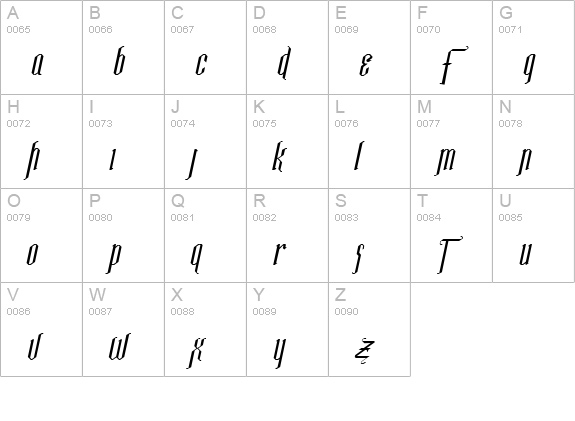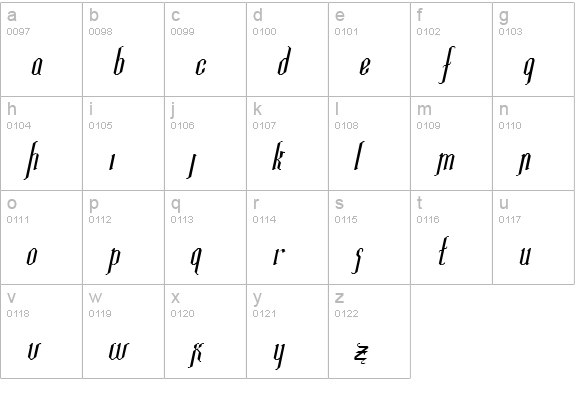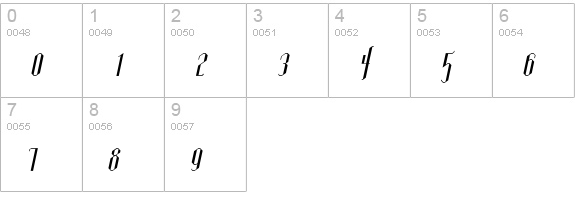
IpswichExtended Italic Font Details
IpswichExtended Italic is a distinctive, italic variant in the IpswichExtended typeface family \xE2\x80\x94 well suited to design and typography projects.
IpswichExtended Italic font is a stunning addition to any design project, offering a captivating blend of elegance and modernity. With its sleek and graceful curves, this font exudes a sense of sophistication that is sure to capture attention. Designed with creativity in mind, IpswichExtended Italic font is perfect for various purposes, from branding and logo design to headlines and editorial work. Its italicized style adds a touch of drama and flair, making it ideal for projects that require a touch of uniqueness and personality. One of the best features of IpswichExtended Italic font is that it is freely available to download at FontsMarket.com. This means that designers and enthusiasts alike can access this extraordinary font without any cost. Whether you are a professional designer or a hobbyist, this font offers the opportunity to elevate your creations without breaking the bank. So, if you are looking for a versatile and eye-catching italic font, look no further than IpswichExtended Italic. With its free availability on FontsMarket.com, you have the chance to enhance your designs with this exquisite typeface. Let IpswichExtended Italic font bring your projects to life and make a lasting impression on your audience.